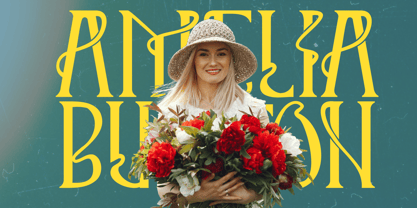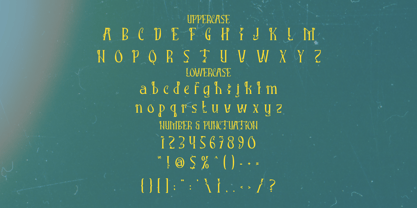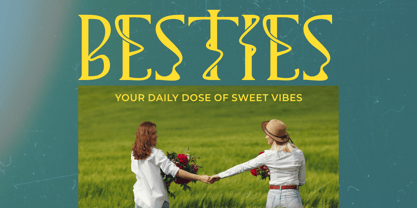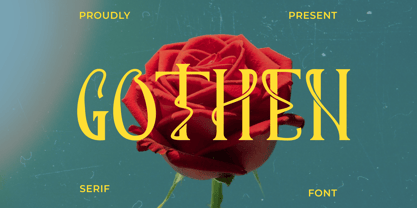
Gothen
by Shanaf
The Gothen Font Family was designed by Yesie Erma Yunita and published by Shanaf. Gothen contains 1 styles. More about this family
Gothen Modern Display Serif Font brings a fresh twist to classic serif design through its tall letterforms, slim proportions, and graceful swirling strokes. Every character feels expressive, with a unique rhythm shaped by curved terminals, extended stems, and refined contrast. The font carries a modern display identity while still holding a hint of artistic charm. Its narrow structure creates strong vertical flow, and its decorative curves introduce a distinctive signature look. This combination gives Gothen a balance of elegance and bold personality, making each word visually memorable. The design feels intentional and stylish without losing readability, which is essential for standout branding and editorial work. Gothen Modern Display Serif Font gives designers a refined tool for creative projects that need modern elegance and visual flair. The font’s sculpted serifs, thin-to-medium contrast, and swirling accents make it ideal for logos, branding, posters, invitations, film titles, magazines, packaging, and expressive headlines. Its decorative spirit supports artistic layouts, while its modern proportions make it adaptable for various themes. Gothic undertones blend with contemporary curves to create a unique aesthetic that enhances both personal and commercial designs. This font works well when used for statements, identity systems, stylish quotes, and creative promotional materials. With Gothen, every project gains a signature touch that feels polished, unique, and beautifully expressive.
Designers: Yesie Erma Yunita
Foundry: Shanaf